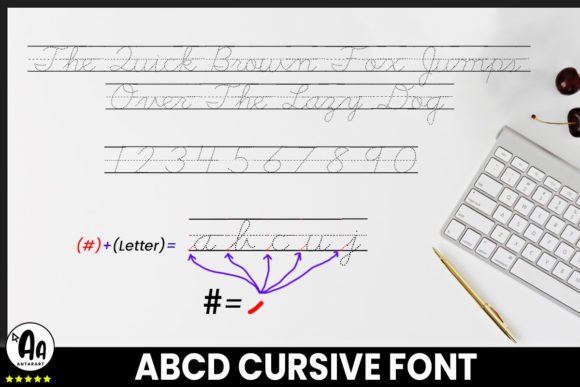
Abcd Cursive Dotted Font
About the Abcd Cursive Dotted Font
Elevate your designs with Abcd Cursive Dotted Font, a font that combines sophistication with readability. Abcd Cursive Dotted (Dashed)
This handwritten font helps you create thousands of worksheets using any software. It is a great learning resource for those who want to learn or teach Cursive handwriting enjoyably and interactively.
Its playful, dotted style is ideal for children’s books, educational materials, invitations, or branding projects targeting a younger demographic. It works well in headlines, short text blocks, and decorative elements, adding a touch of hand-drawn charm. However, its low x-height and decorative nature make it unsuitable for body text or extended reading.
For optimal visual balance, pair Abcd Cursive Dotted with a clean sans-serif like Open Sans for body copy or a geometric sans-serif like Montserrat for a more modern feel. A simple serif like Lora could also provide a sophisticated contrast. Avoid pairing it with other highly decorative fonts, as this could create visual clutter.
The font’s overall personality is friendly and approachable, conveying a sense of youthful energy and creativity. It’s best suited for projects requiring a handwritten feel without sacrificing readability in short bursts.